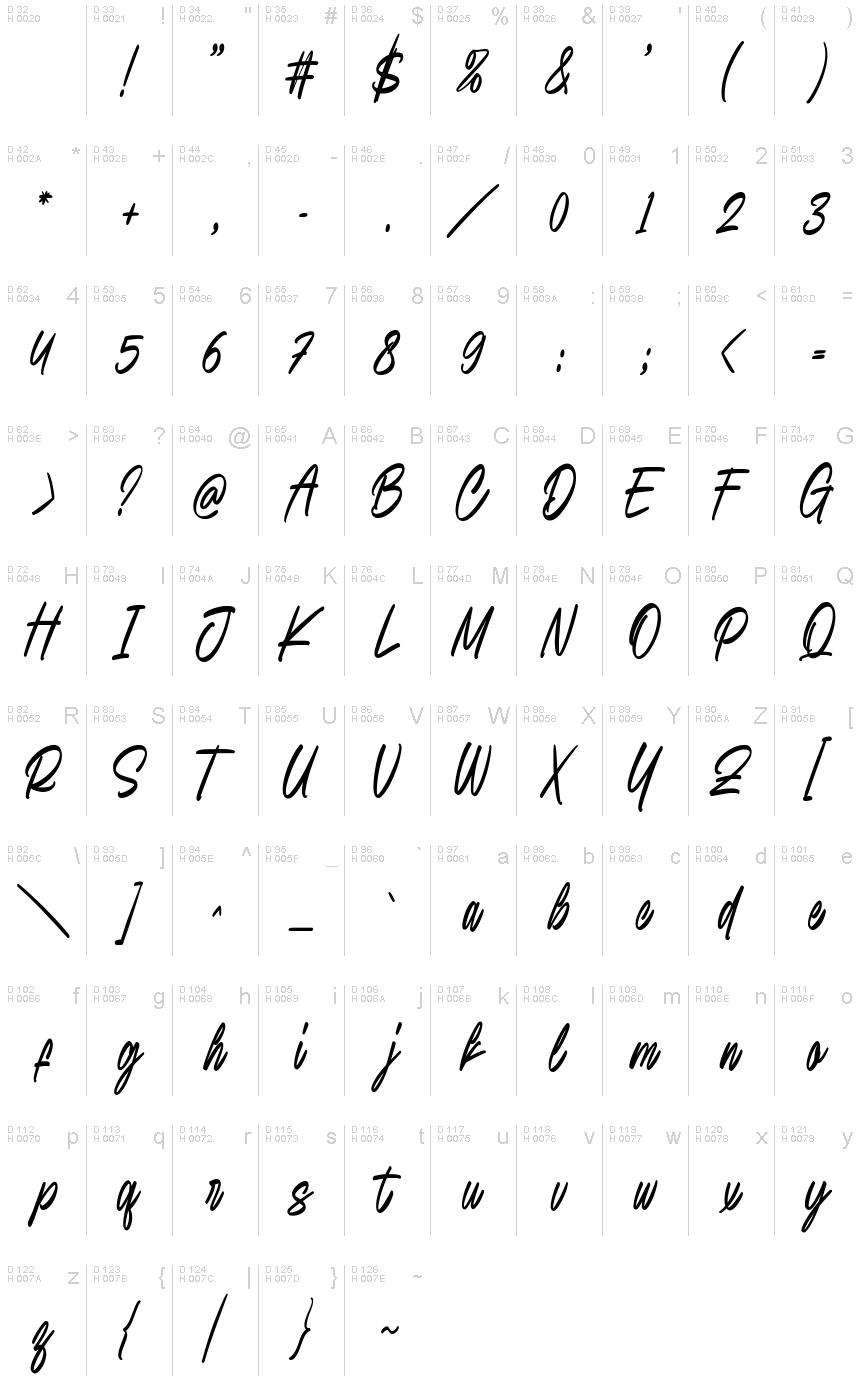
Saturday Delicate Regular
Saturday Delicate font, crafted by Damarletter Studios, embodies the charm of a handwritten style with its elegant strokes and graceful curves. This condensed font radiates a sense of intimacy and warmth, making it ideal for designs that aim to convey personal touch and creativity.
Its unique flair draws the eye while maintaining an effortless readability, allowing for both artistic expressions and everyday communication. Perfect for wedding invitations, greeting cards, or branding that seeks to evoke a feeling of nostalgia and tenderness.
With Saturday Delicate, your design will stand out through its distinctive character and exquisite aesthetic appeal, seamlessly blending sophistication and playfulness in various contexts.
Its unique flair draws the eye while maintaining an effortless readability, allowing for both artistic expressions and everyday communication. Perfect for wedding invitations, greeting cards, or branding that seeks to evoke a feeling of nostalgia and tenderness.
With Saturday Delicate, your design will stand out through its distinctive character and exquisite aesthetic appeal, seamlessly blending sophistication and playfulness in various contexts.